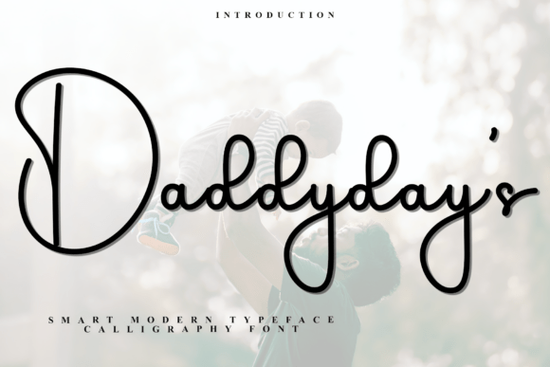
If you're looking for a script font that feels personal, warm, and effortlessly stylish especially for family-centered or heartfelt designs Daddyday’s Font stands out. It’s perfect for creating custom Father’s Day cards, handmade product labels, or social media graphics that speak directly to the heart. The flowing cursive style mimics natural handwriting with a gentle touch, making it ideal for projects where authenticity matters.
What makes Daddyday’s Font special?
Unlike many script fonts that feel overly ornate or stiff, Daddyday’s strikes a balance between elegance and ease. Its medium-weight lines are smooth and consistent, while the lowercase letters connect fluidly like they were written with a felt-tip pen on paper. The standout feature? A bold, slightly oversized capital letter at the start of words, which adds drama without overwhelming the design. This gives your text a sense of intention, like a handwritten note from someone who truly cares.
The font maintains an upright slant, which keeps it readable even in smaller sizes. That’s helpful if you’re designing labels for children’s clothing, journal covers, or watermarks on photos. Whether you’re crafting a quote for Instagram or laying out a printable card, the rhythm of the letters feels natural and inviting.
Best uses for Daddyday’s Font
- Custom Father’s Day stationery: Use it for greeting cards, envelopes, or gift tags that feel personal and thoughtful.
- Boutique children’s apparel labels: Pair it with soft pastel colors for baby clothes or toddler wear with names like “Daddy’s Little Star” or “Best Dad Ever.”
- Handmade merchandise logos: Great for small businesses selling artisanal gifts, journals, or wooden keepsakes.
- Photography watermarks: Add a subtle, elegant signature to your images perfect for lifestyle or family photography.
- Social media quotes: Ideal for posts that mix warmth and casual tone, such as “Dads don’t need superpowers they just need to show up.”
How does it fit into modern design trends?
There’s a growing preference for fonts that feel human and unpolished in a good way something that doesn’t scream “designer” but still looks intentional. Daddyday’s fits right into this trend. It works well alongside minimalist layouts, textured backgrounds, and muted color palettes. You’ll find it complements other handcrafted elements like pressed flowers, chalkboard textures, or linen paper effects.
Why designers and crafters choose this font
Another plus: it doesn’t require advanced design skills to make it look professional. Even with basic layout tools, a few well-placed words in Daddyday’s can instantly elevate a project’s emotional tone. Think of it as a quiet confidence booster for your creative work.
If you’ve been searching for a script font that feels genuine, not forced, and works across multiple personal and business projects, Daddyday’s Font is worth trying. It’s not flashy but it’s memorable. And when your audience reads a card or sees a label with this font, they’ll likely feel something deeper than just a visual impression.